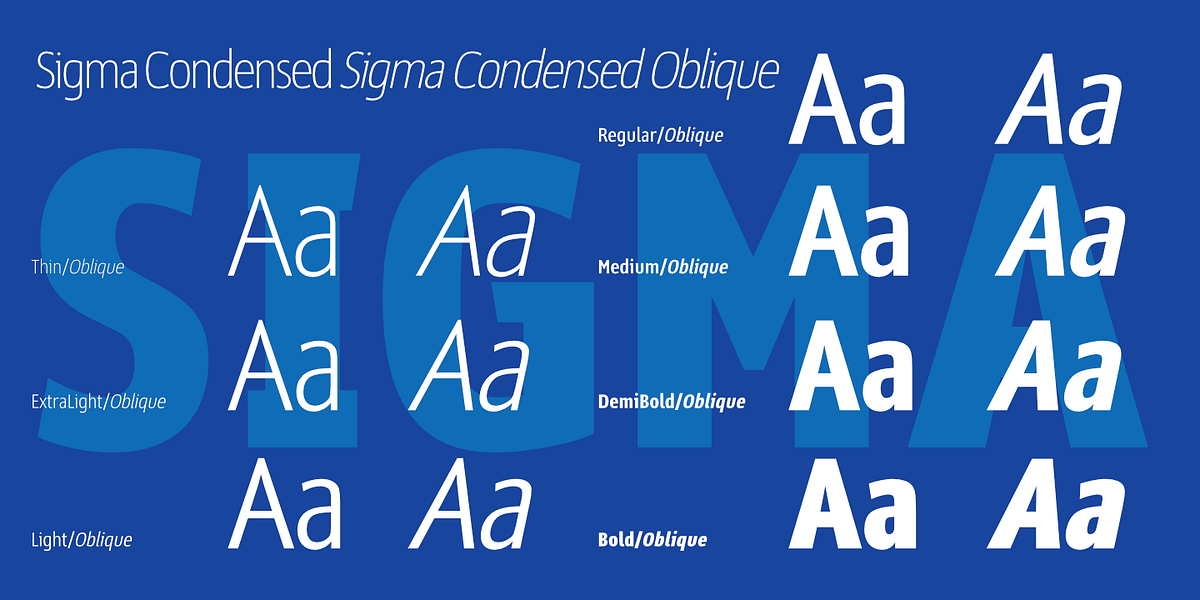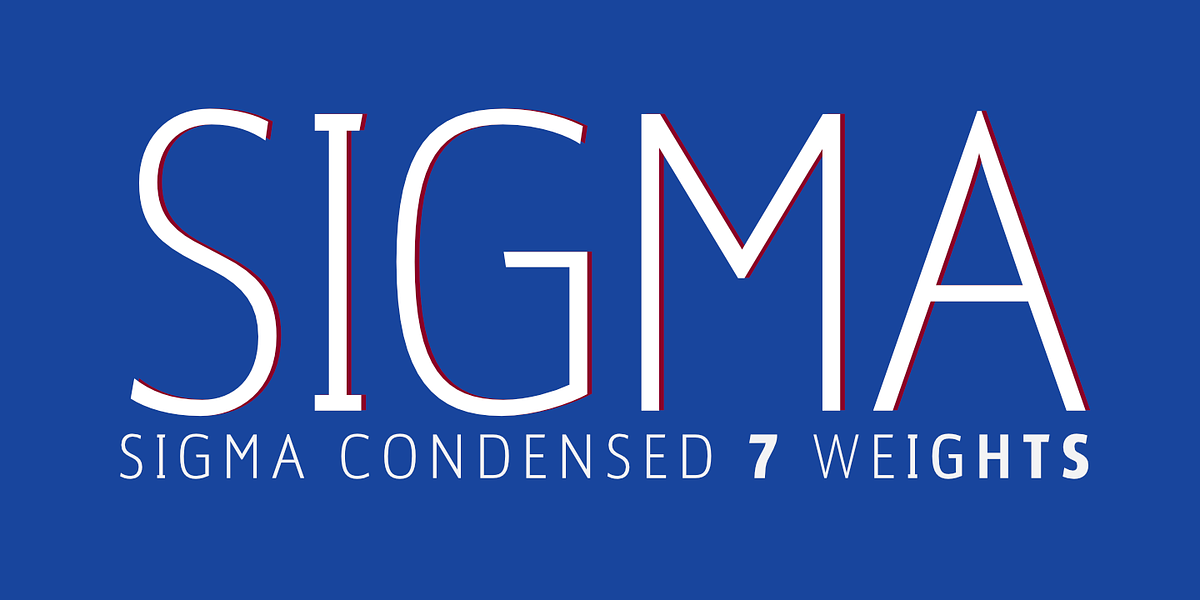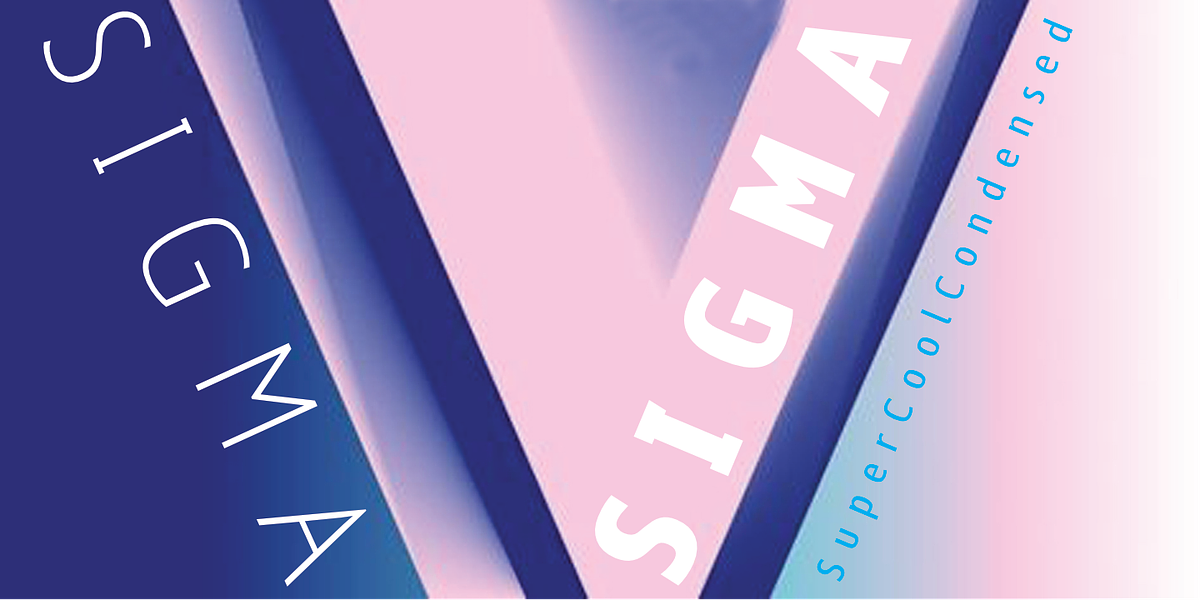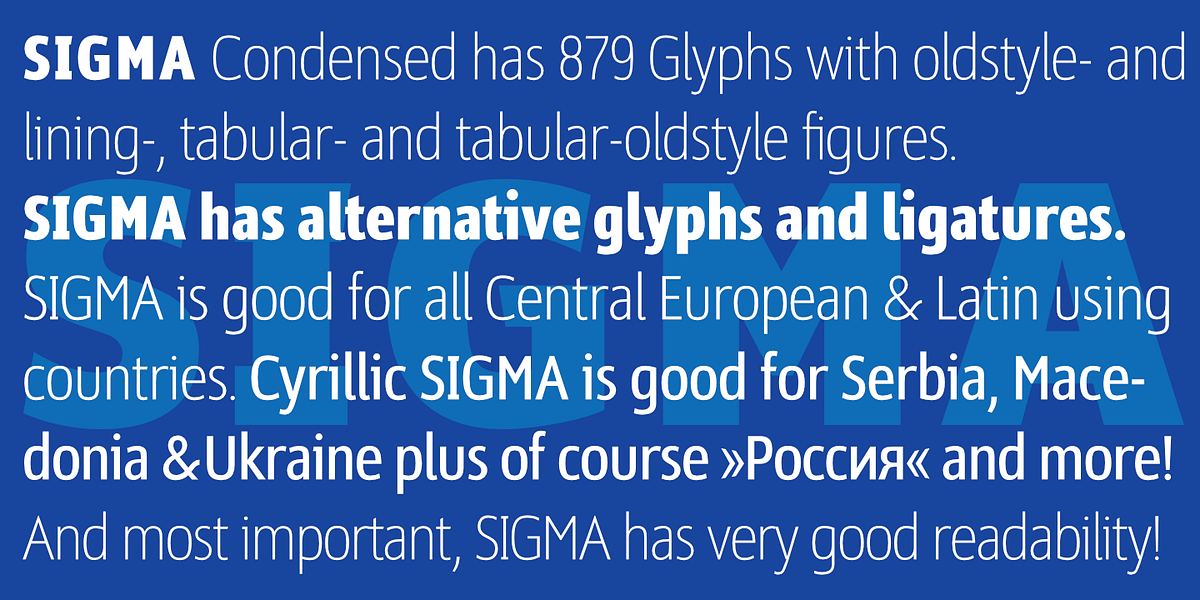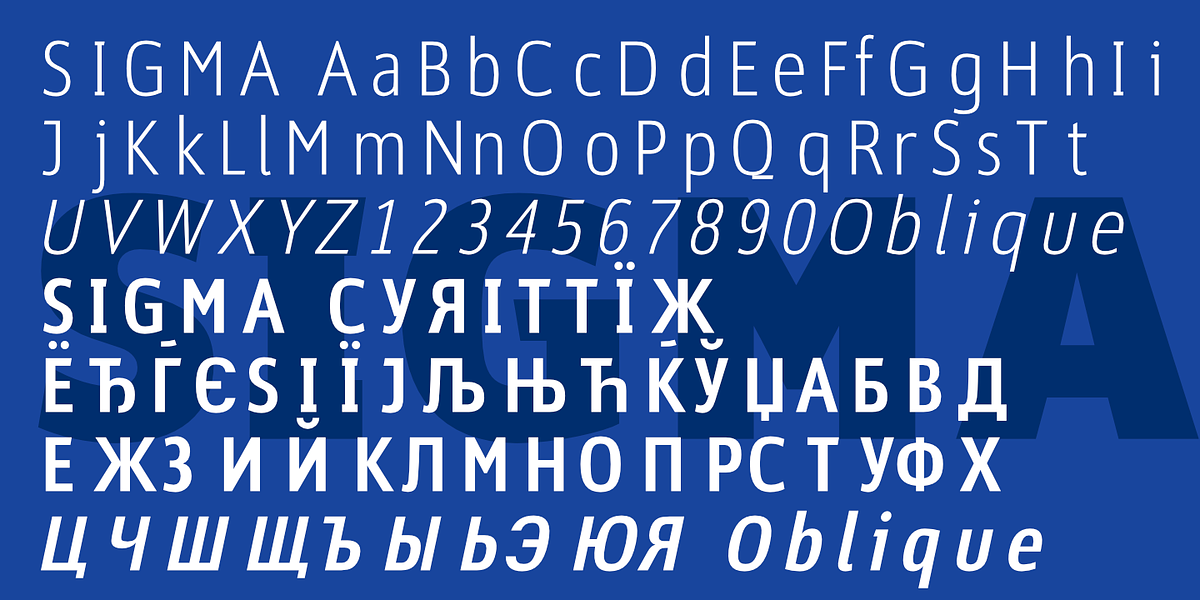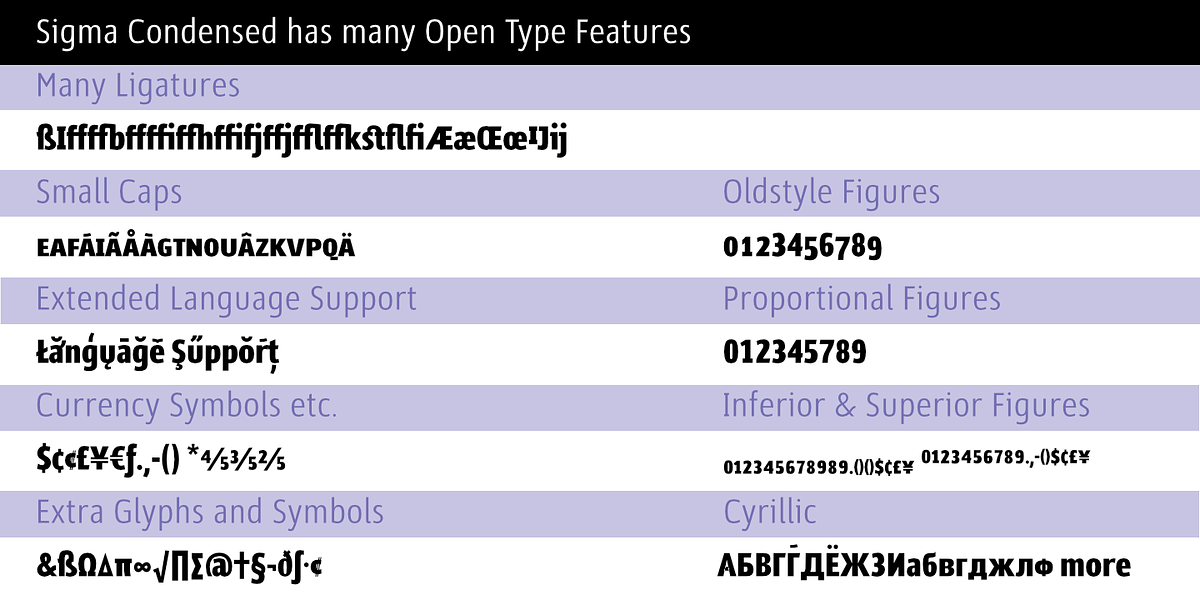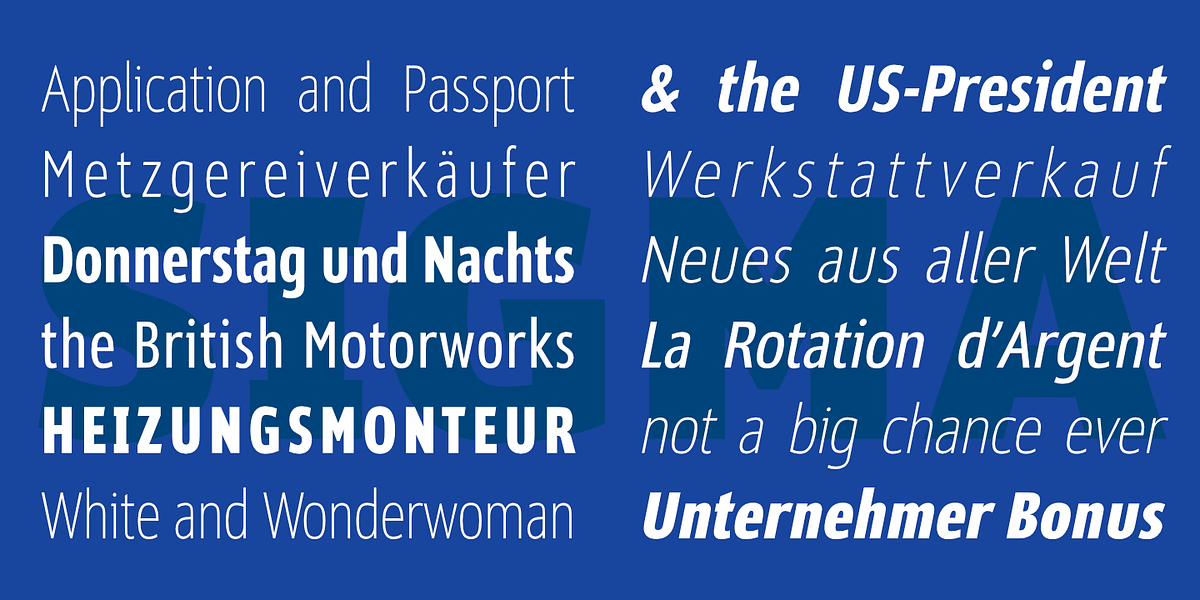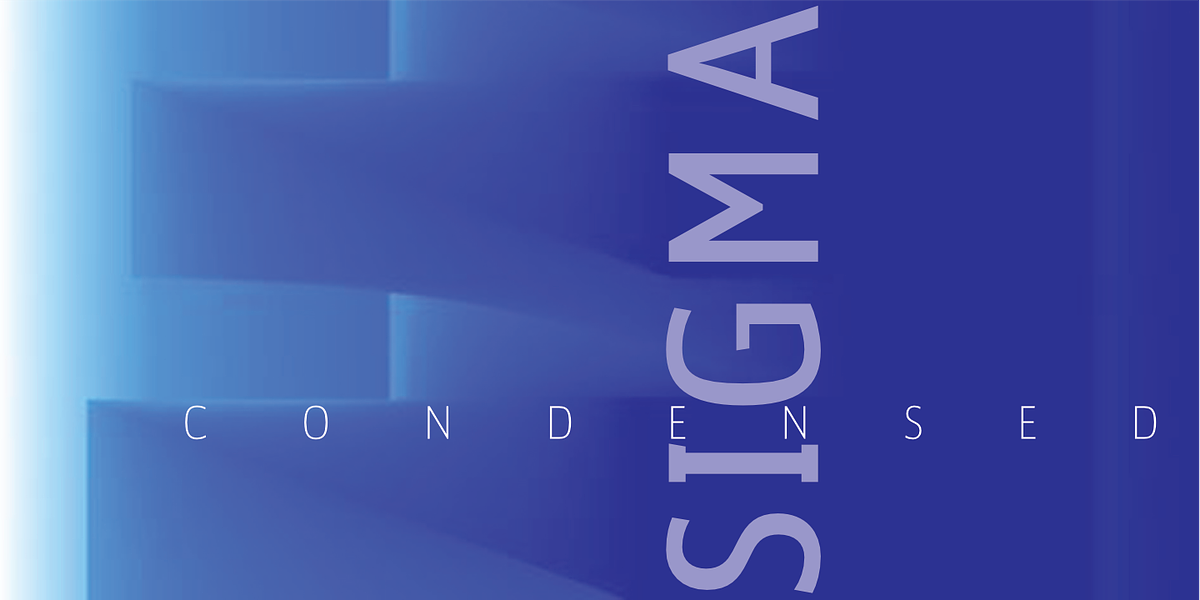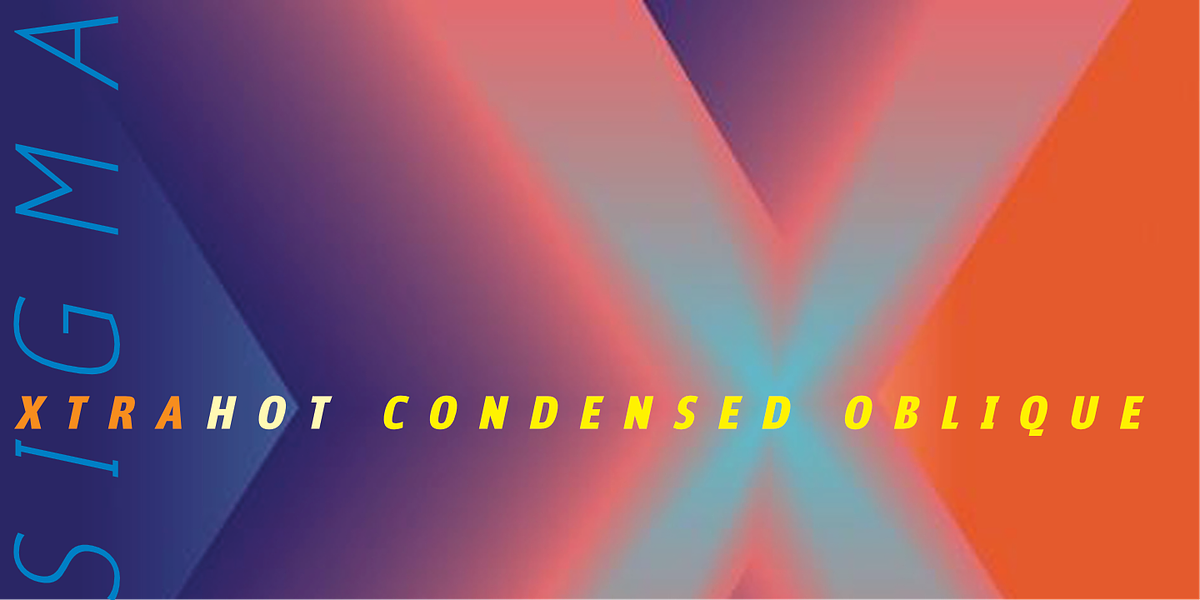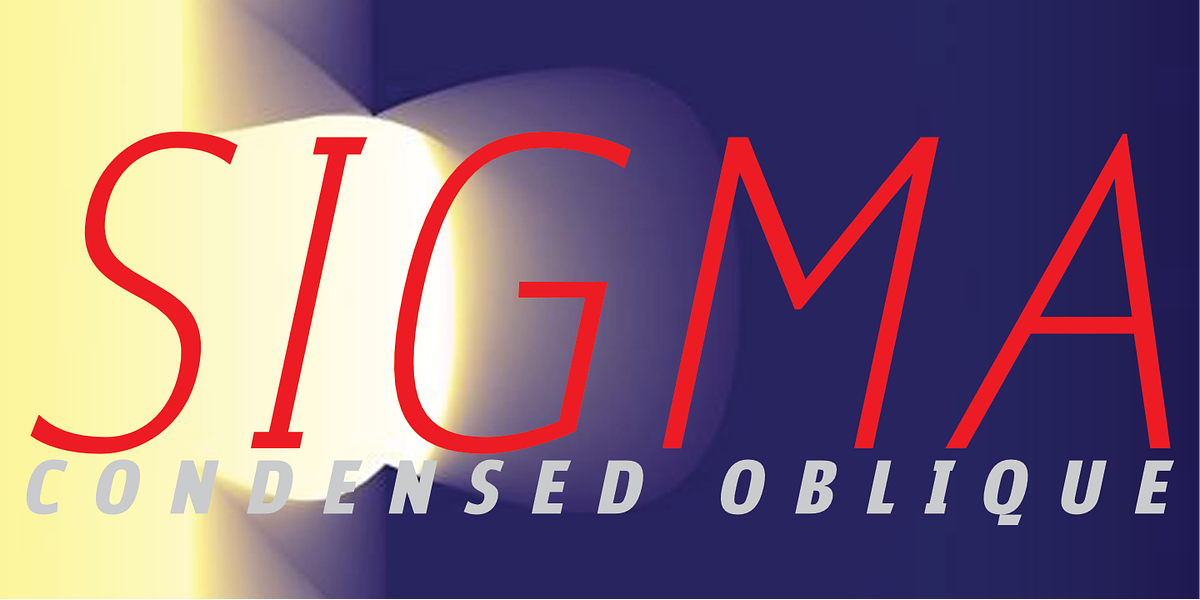
Sigma Condensed
SIGMA is a humanist sans-serif font designed for readability. It offers seven weights from thin to bold, making it suitable for both body text and headlines. The font includes a wide range of glyphs (875) supporting Central European and Latin languages, as well as Cyrillic characters for use in Serbia, Macedonia, Ukraine, and Russia.